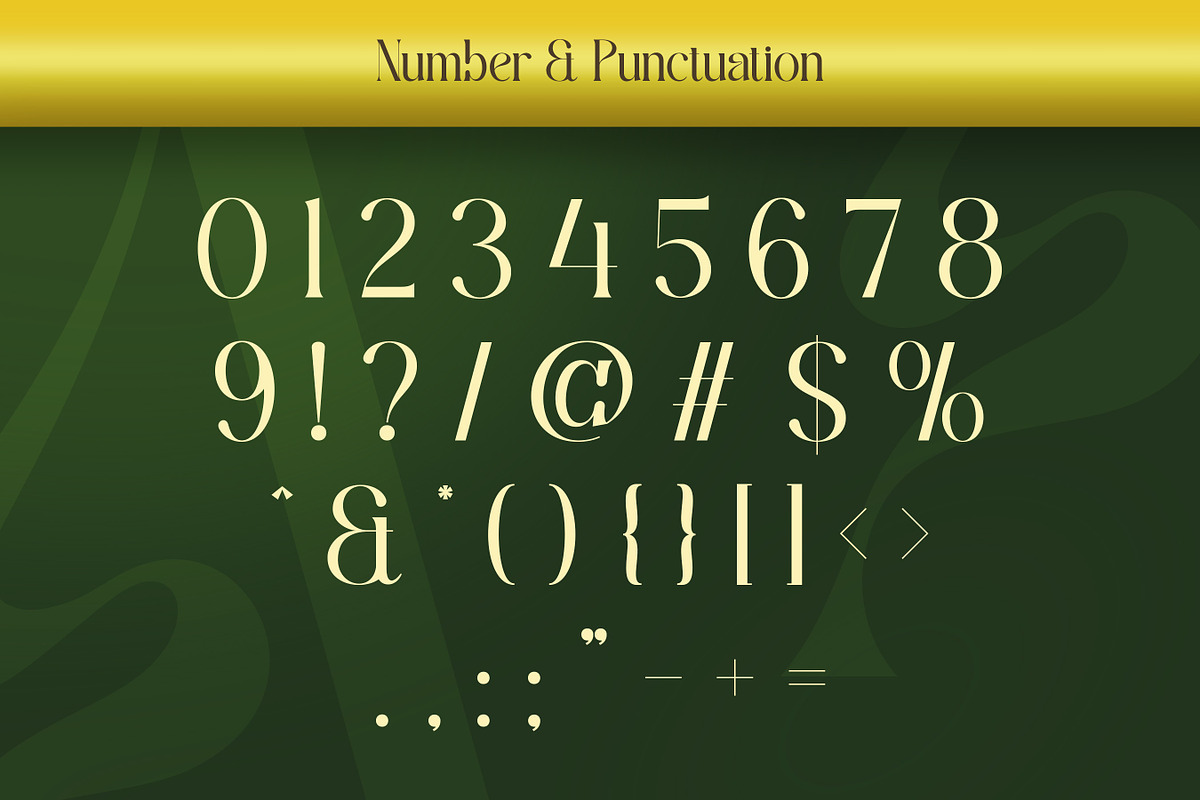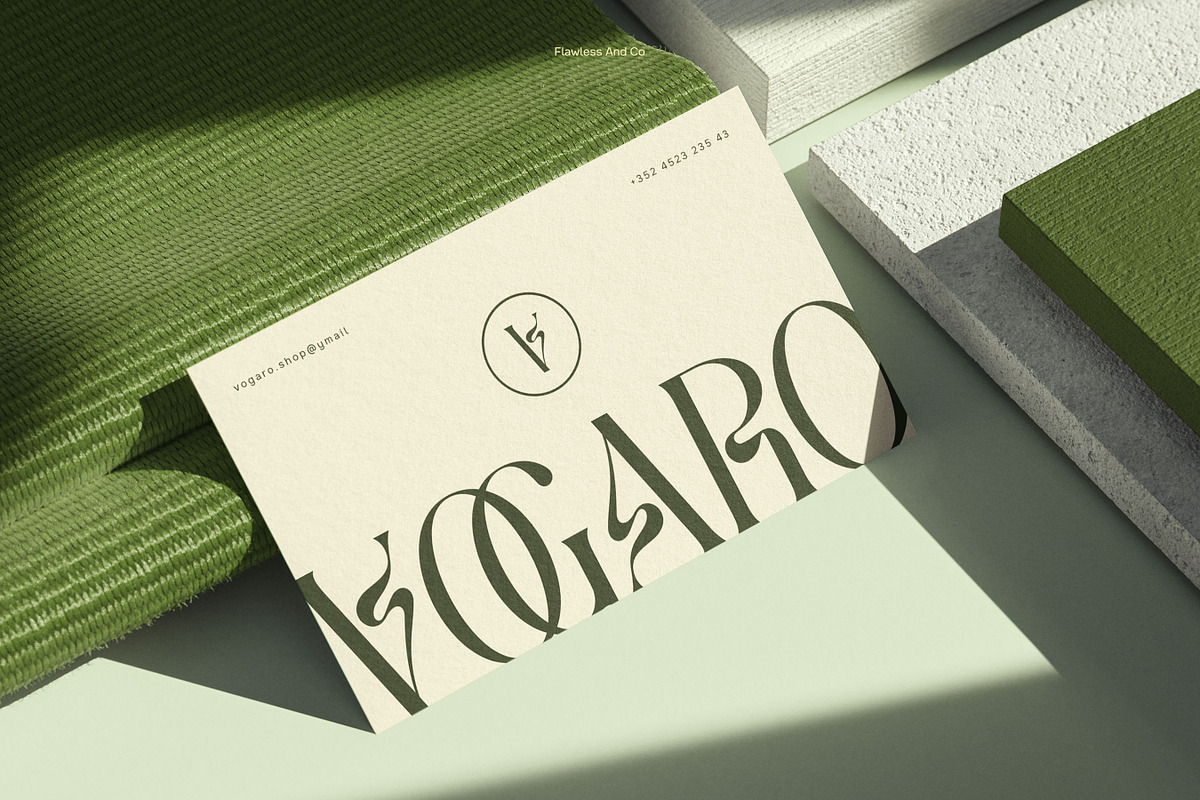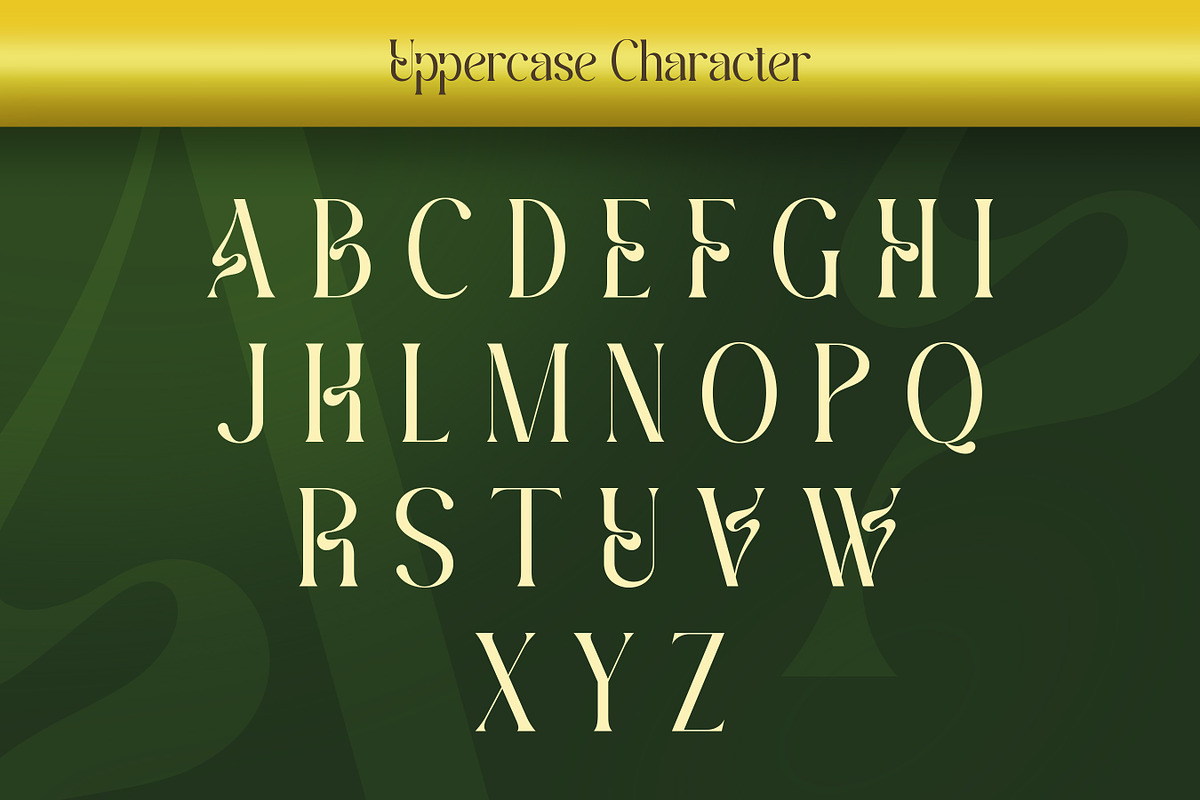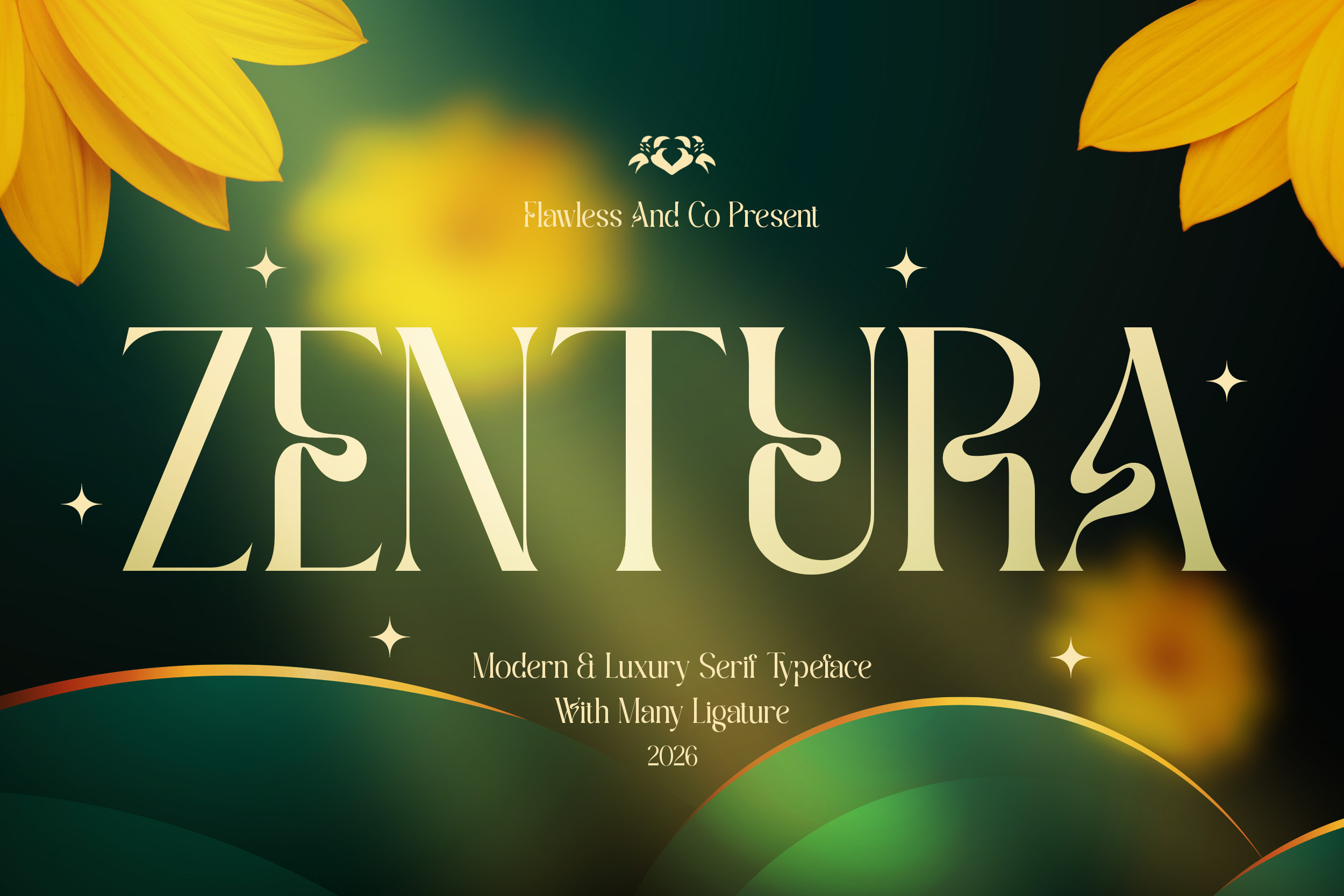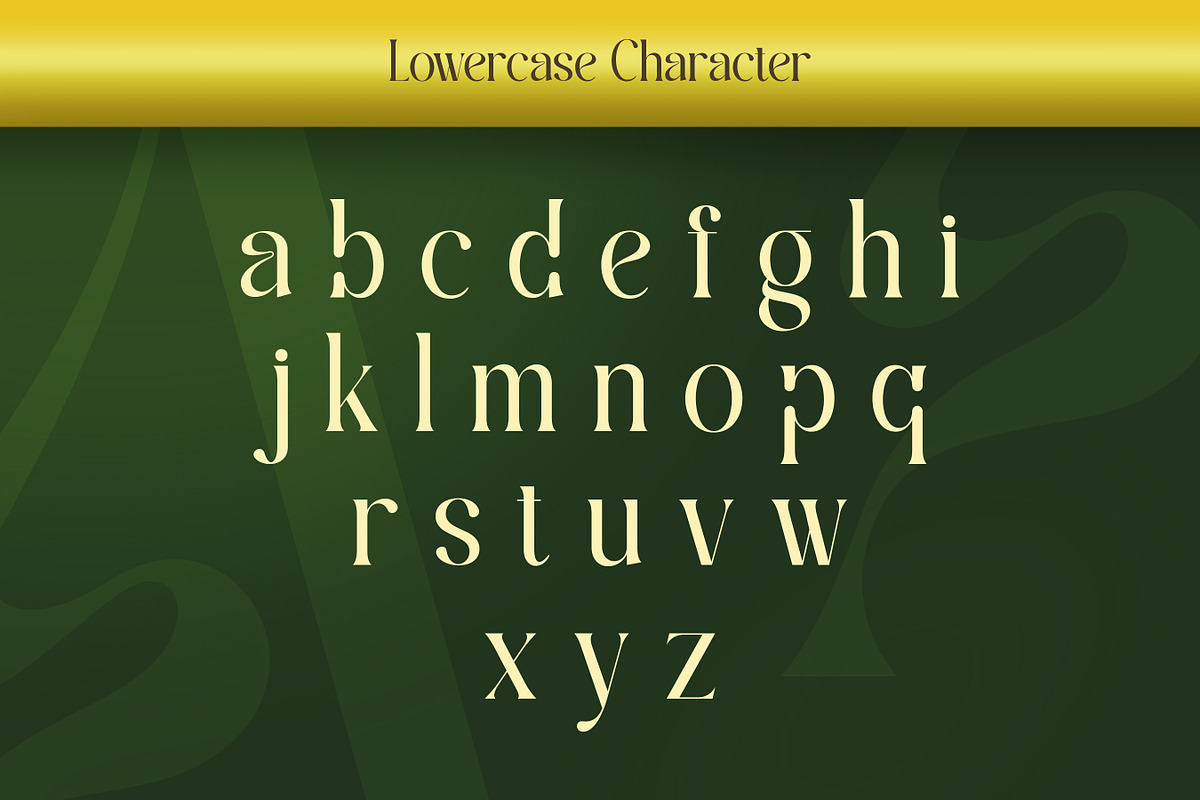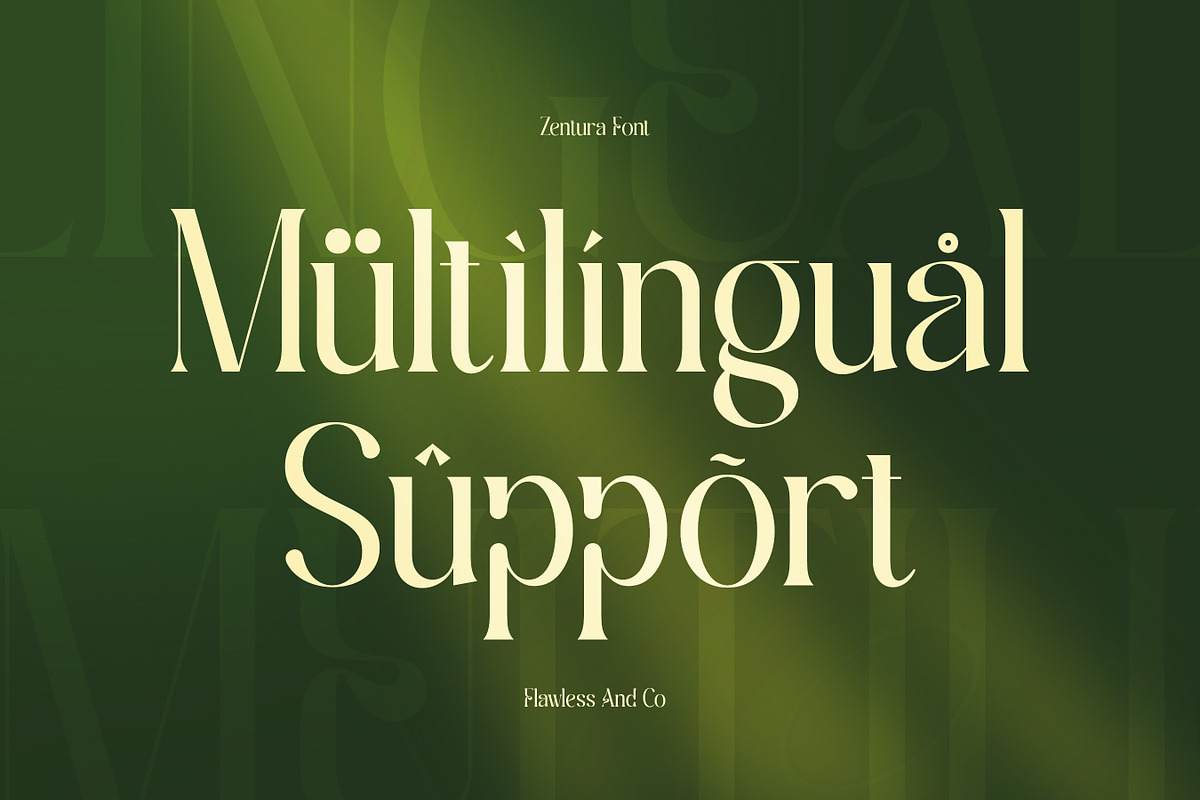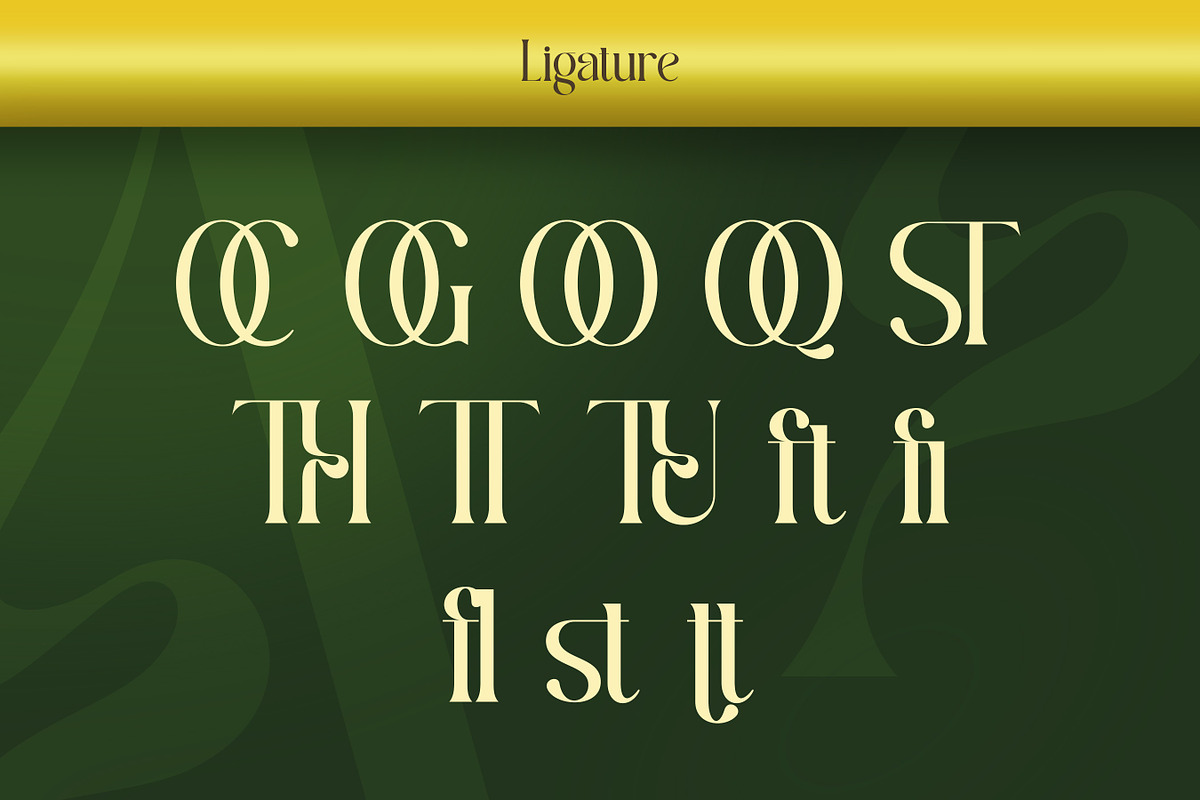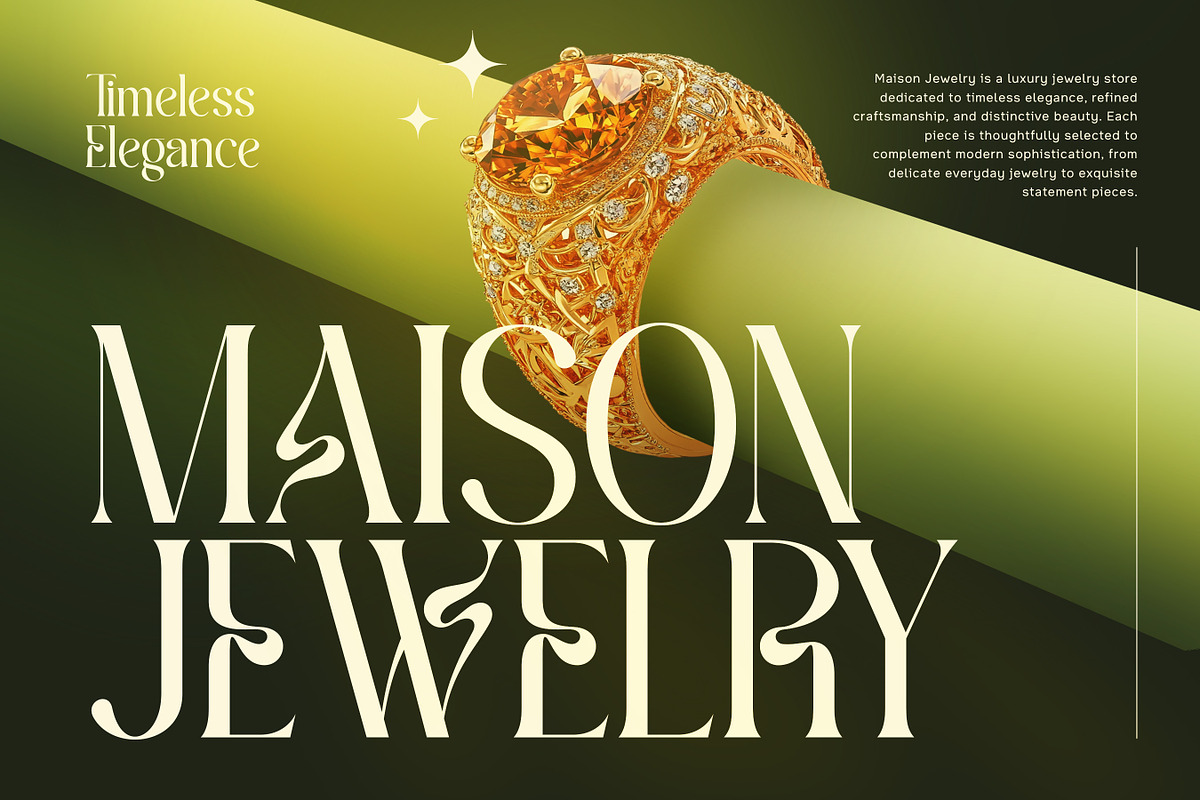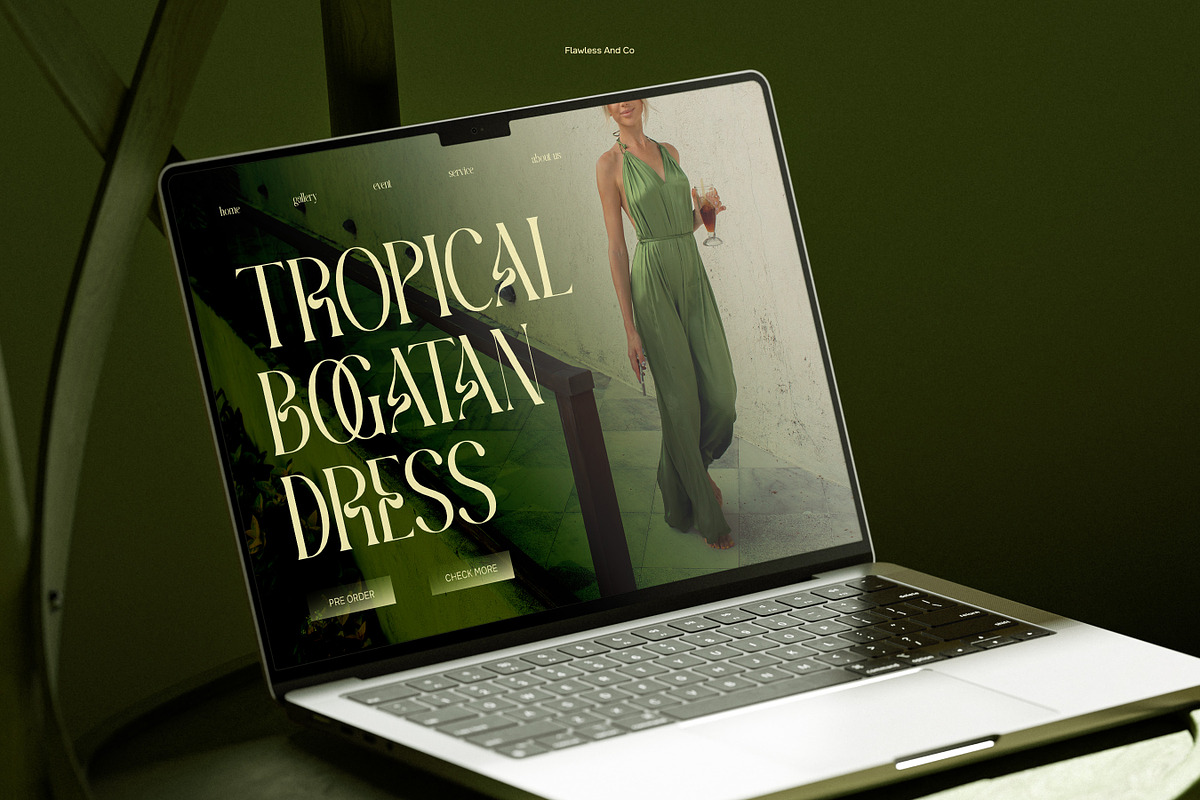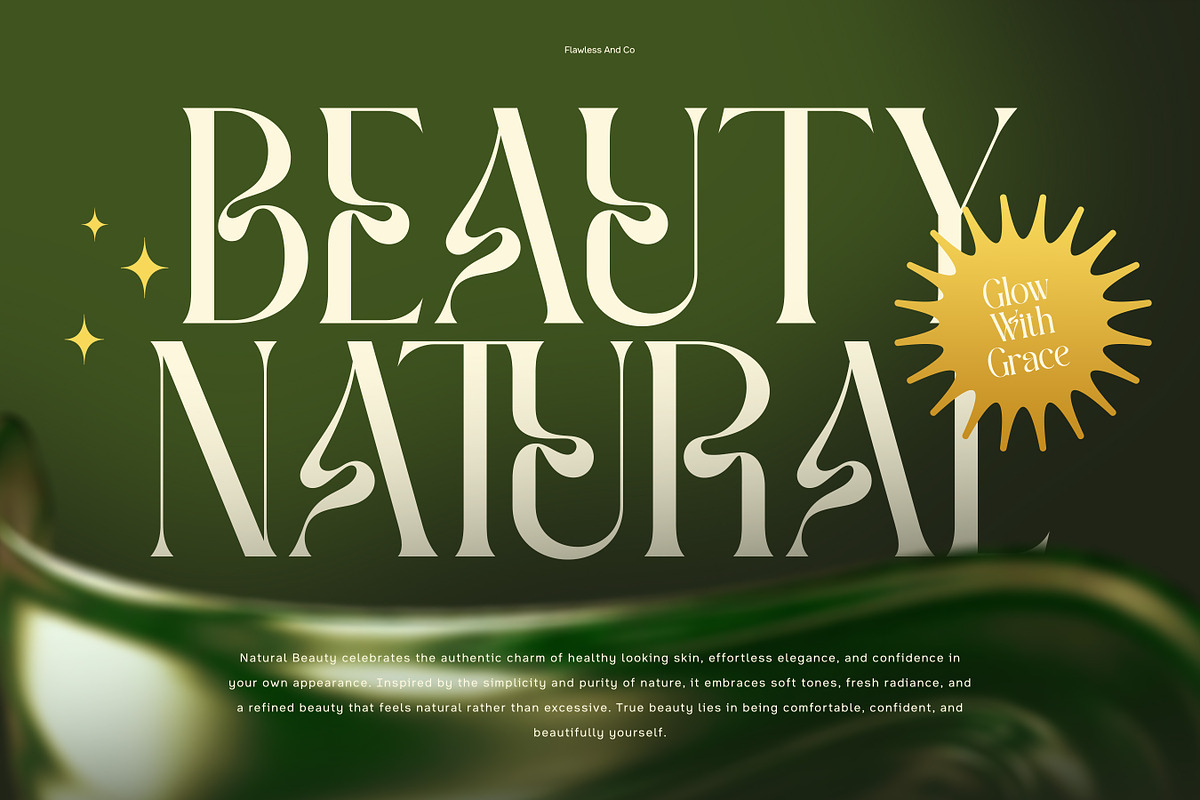
Zentura - Luxury Serif Font
Zentura - Modern Luxury Serif Font
Zentura is a modern luxury serif font designed with elegant proportions, refined high-contrast strokes, and distinctive letterforms. Its sophisticated curves and graceful serif details create a polished look that blends contemporary style with timeless elegance. With its stylish character and decorative ligatures, Zentura is made to stand out in premium visual projects while maintaining a clean and sophisticated appearance.
Alternates & Ligatures
Who Should Use Zentura?
Zentura is perfect for designers and creatives who love elegant typography with a luxurious and feminine character. It’s ideal for brand designers working on sophisticated identities, fashion projects, beauty brands, and premium designs that require a stylish and distinctive typographic presence.
Suitable For:
Luxury and high-end branding
Fashion and beauty logos
Boutique and lifestyle branding
Wedding invitations and stationery
Beauty and cosmetic packaging
Editorial headlines and magazine layouts
Jewelry and premium product branding
Elegant social media graphics
Posters and promotional materials
Quotes and sophisticated typography
Luxury website and editorial designs